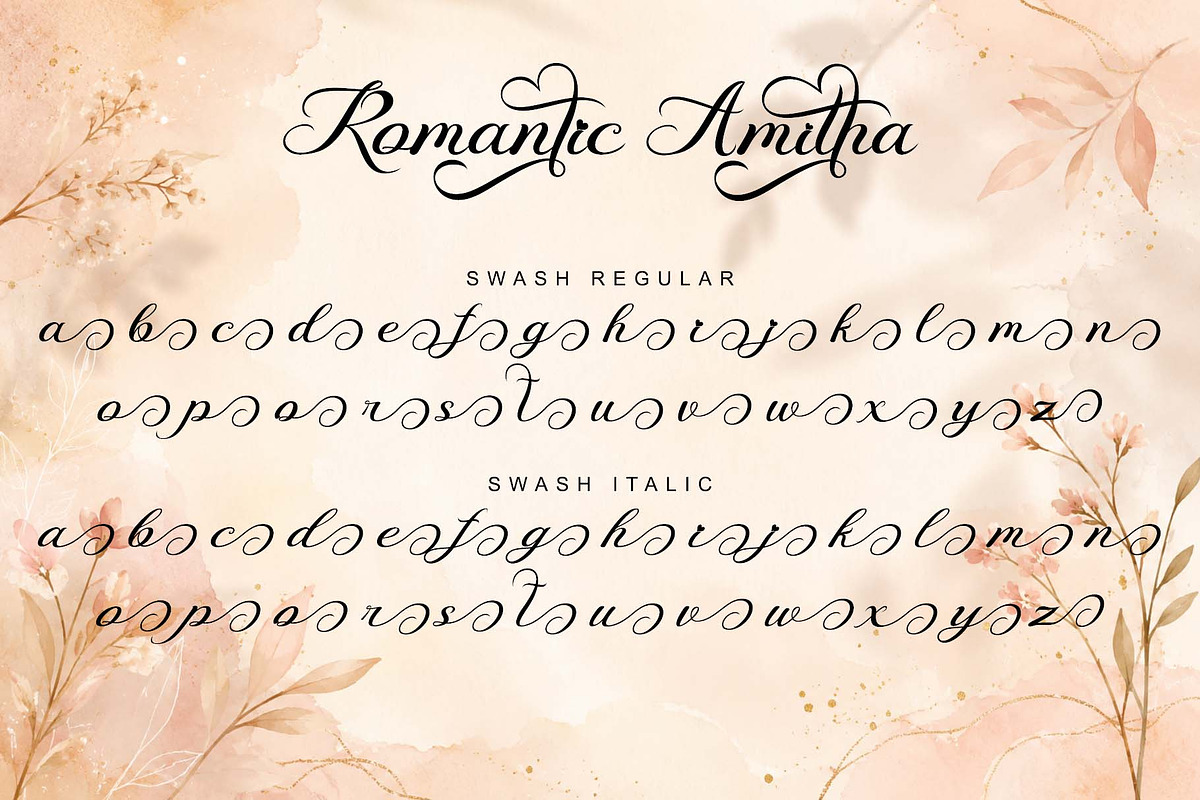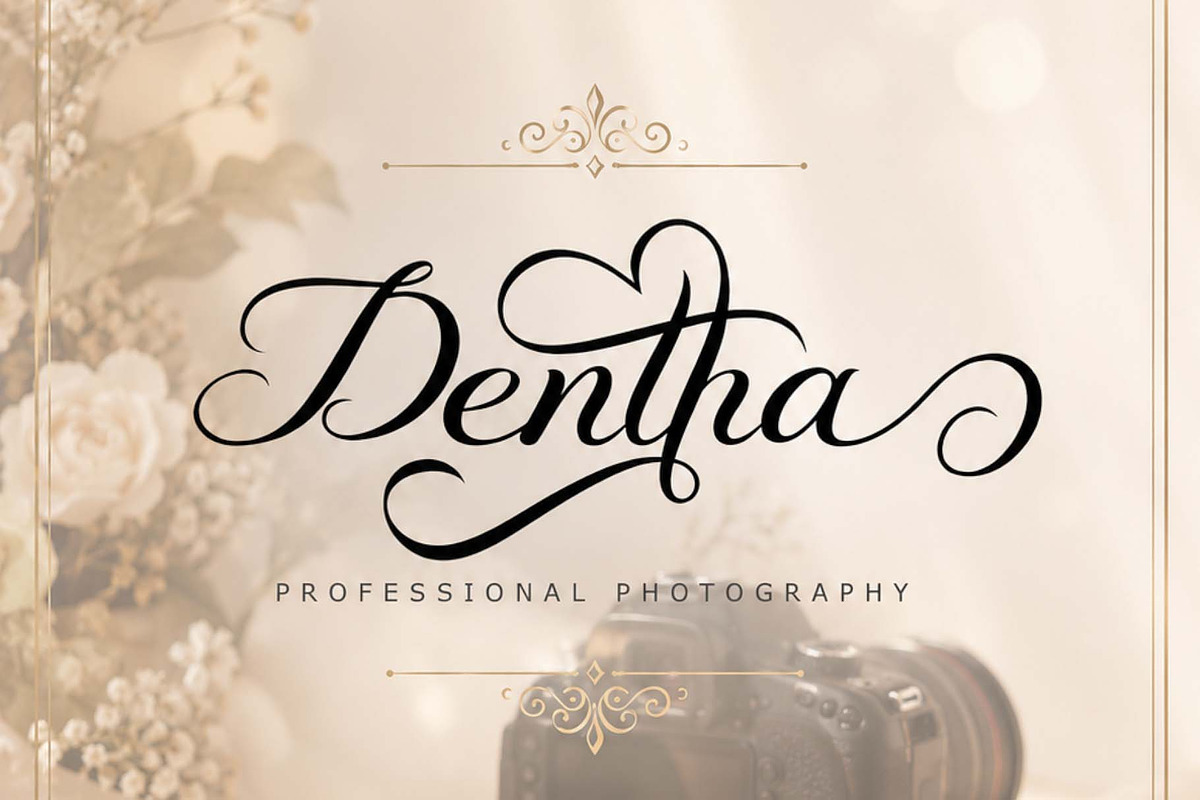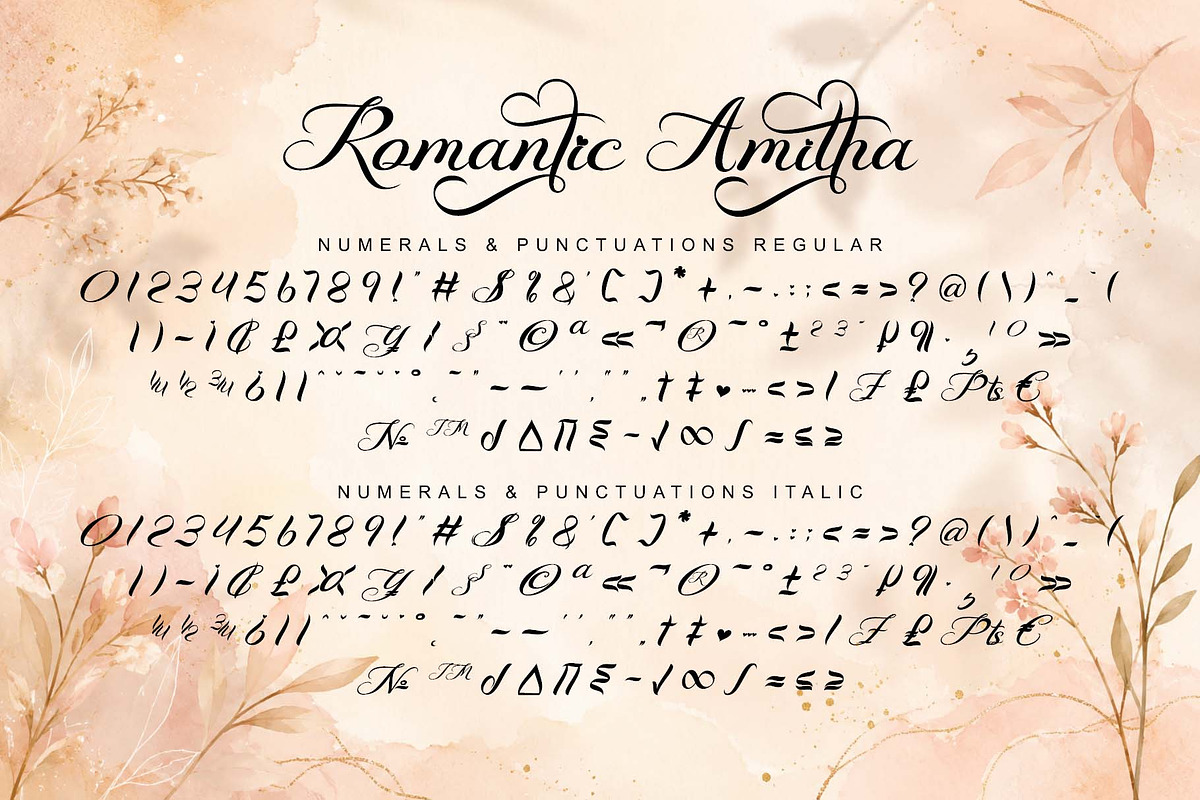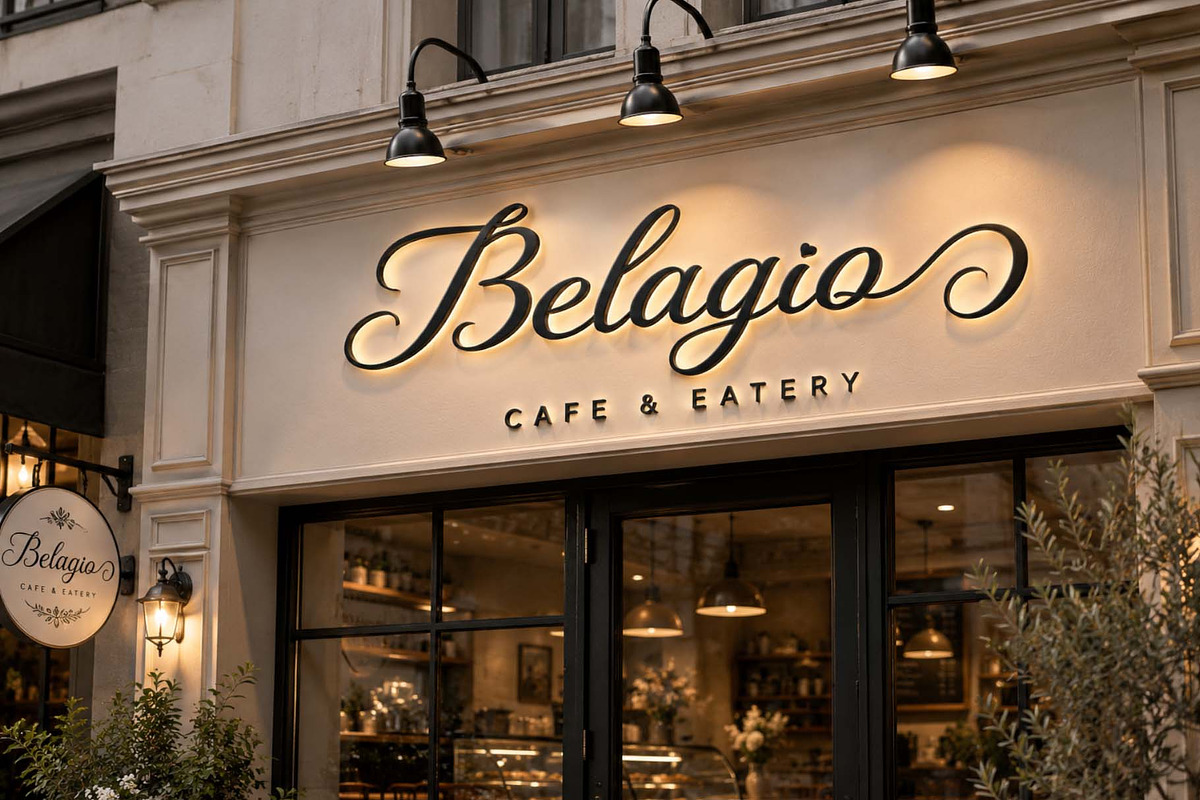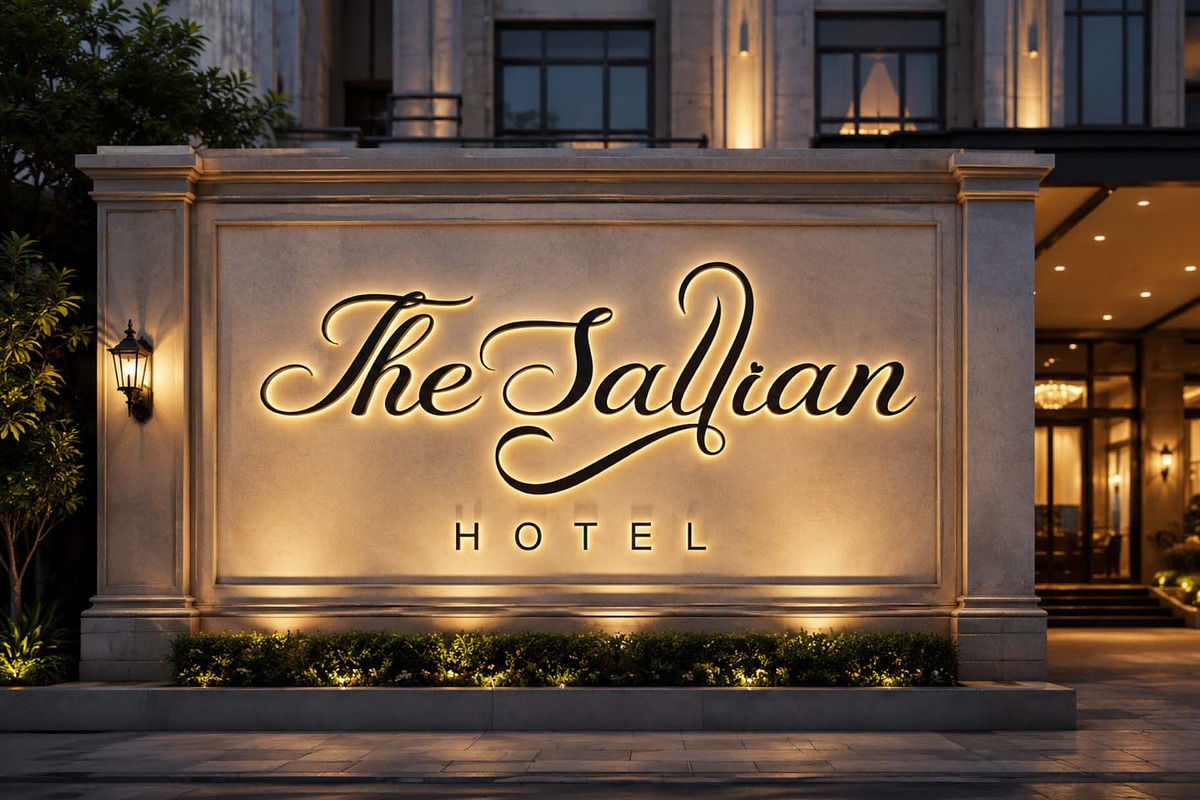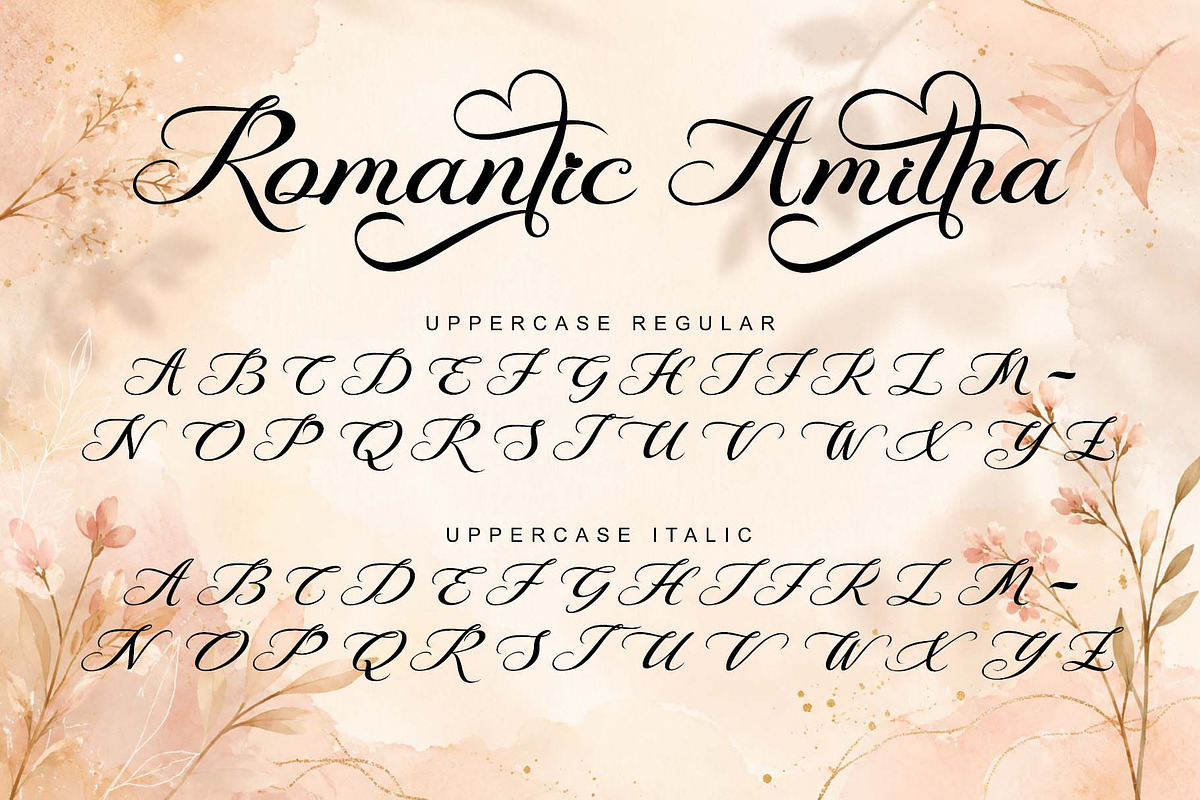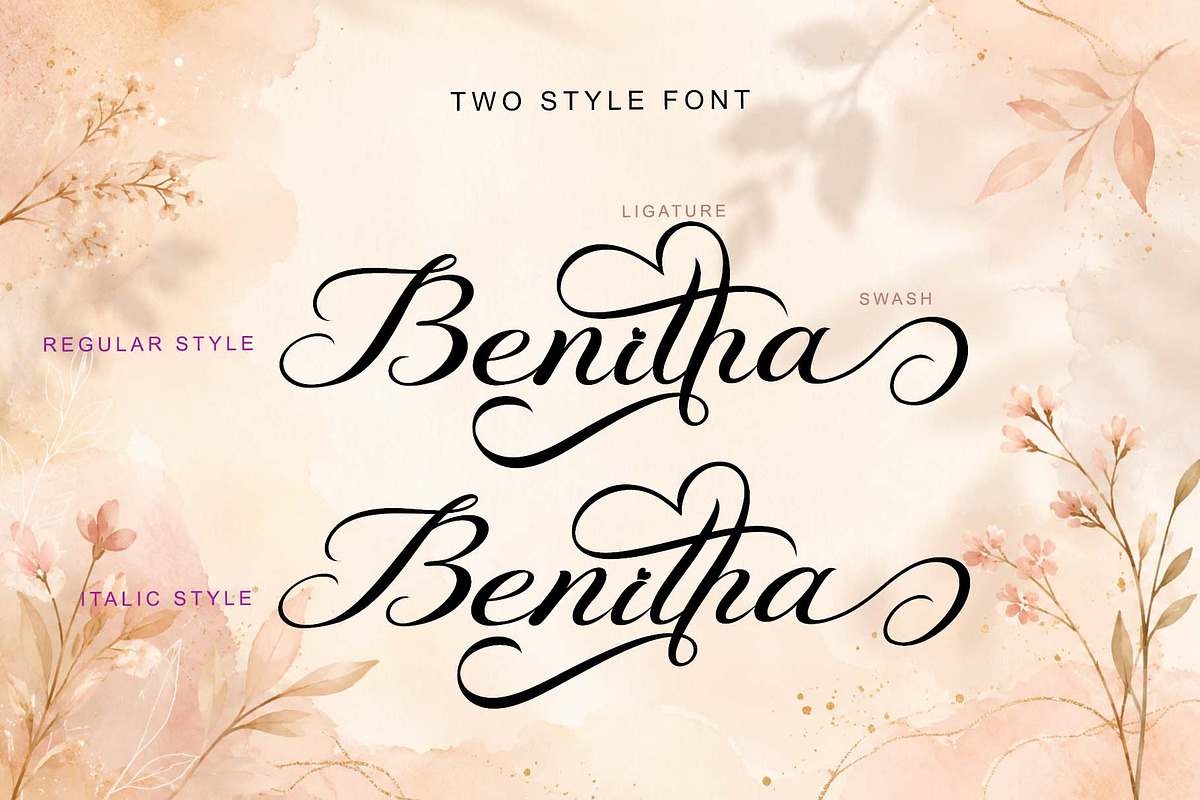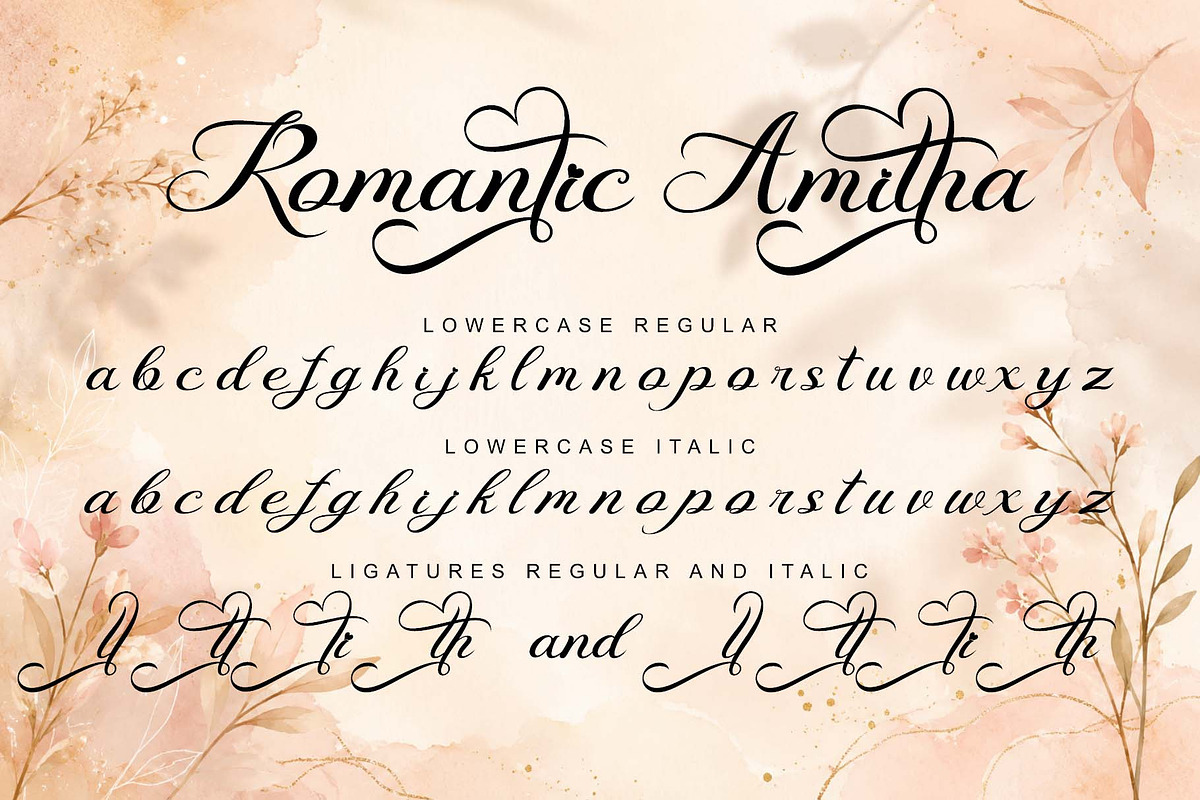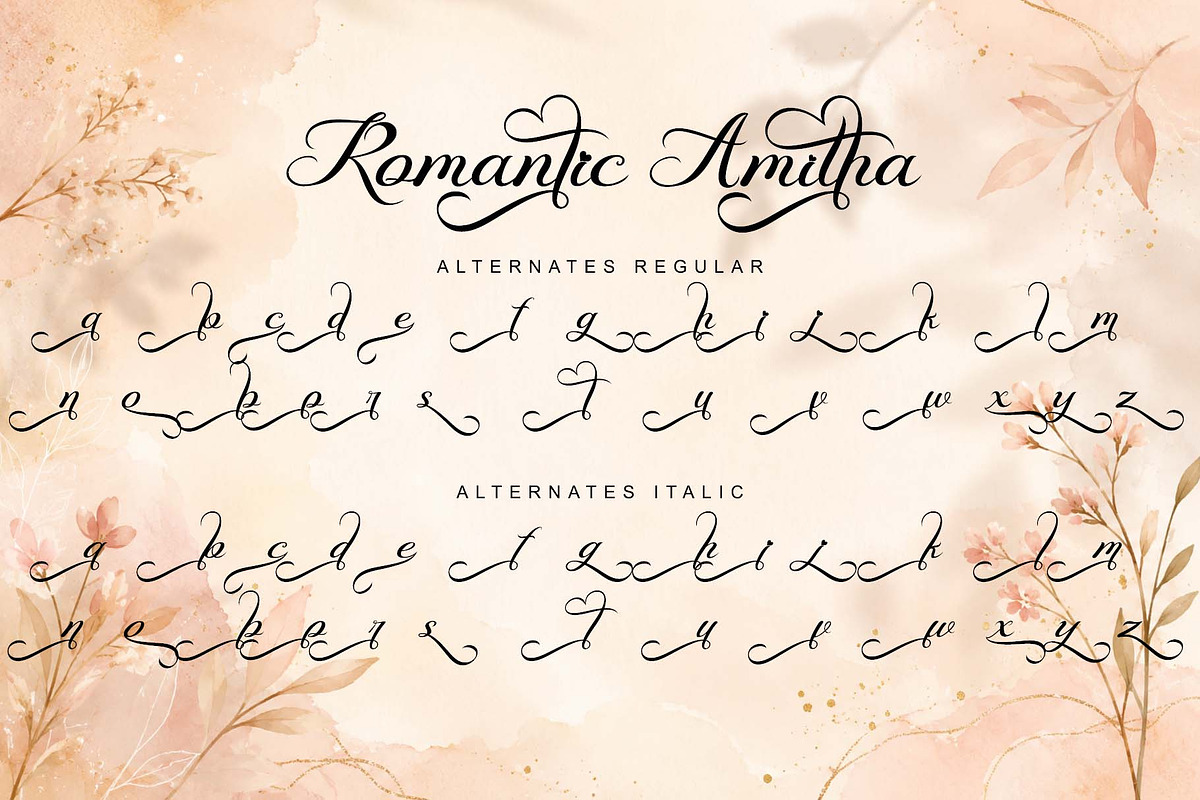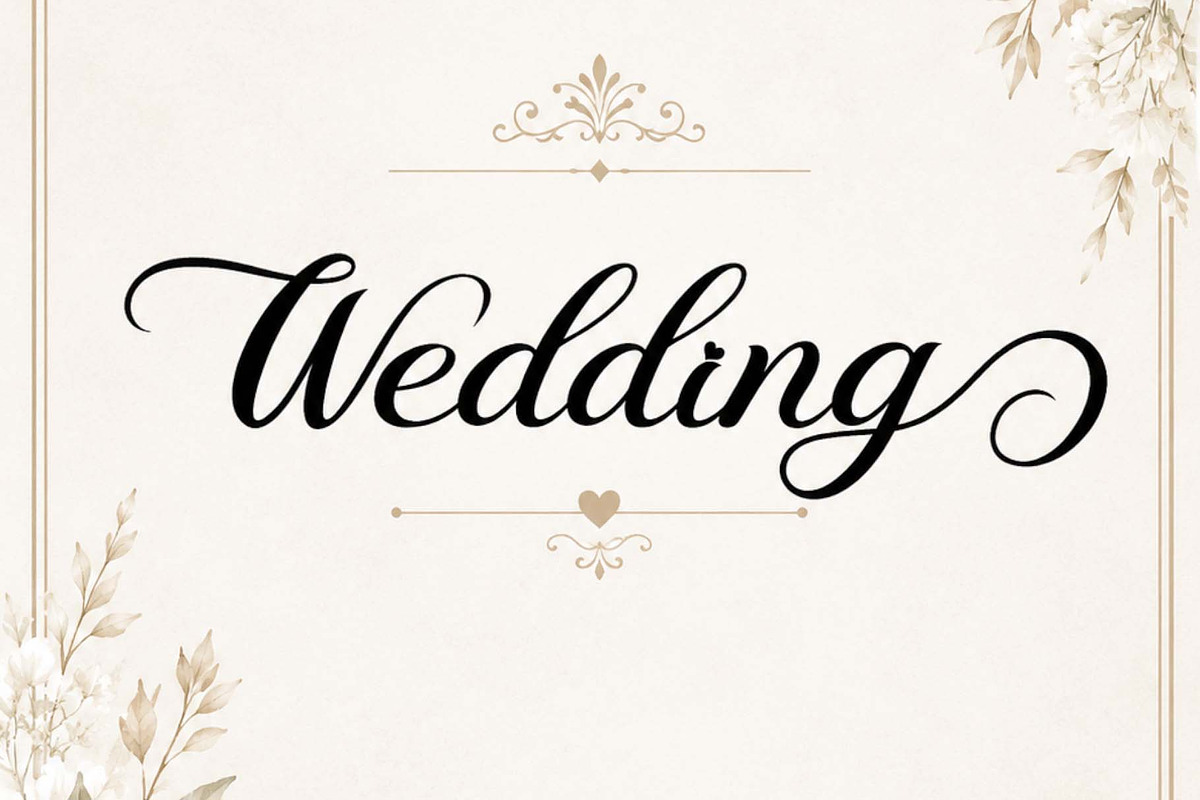
Romantic Amitha
"Romantic Amitha" is a beautiful and elegant handwritten font. It comes in two styles: regular and italic. It features uppercase and lowercase letters, numerals, punctuations, multilingual support, ligatures, swashes, and alternates. It's perfect for wedding invitations, photography, floristry, social media, advertising, YouTube, Christmas, summer, Valentine's Day, song titles, movie titles, and more.